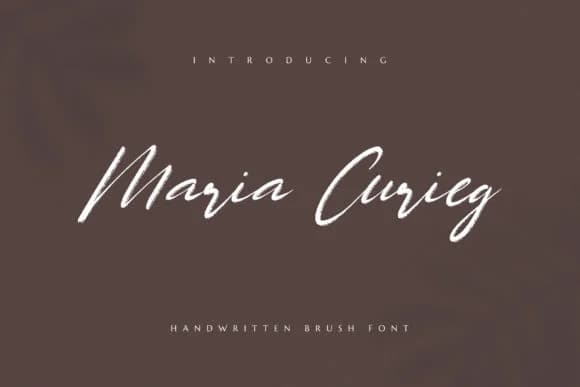
Maria Curieg Font by Productype is a natural handwritten brush script with effortless flow and organic curves that feel genuinely personal. The soft, relaxed letterforms work beautifully across social media graphics, wedding invitation suites, and boutique skincare packaging where authenticity matters most. What makes this font stand out is how the brush strokes retain real character without tipping into stiffness or overwrought flourishes. It's the kind of typeface that adds warmth to any design when you need something that feels hand-drawn rather than algorithmic.
You'll find genuine utility in craft label projects, greeting card layouts, and small business branding that calls for a personal voice. The handwritten quality moves quickly across different projects without demanding heavy customization or artistic tweaking, which translates to faster turnaround on client work. Where many script fonts feel either too formal or too whimsical, Maria Curieg sits comfortably in that middle ground that adapts across contexts and applications. The brush texture keeps things lively without overwhelming content, making it work just as well on mood boards as on finalized print work. The tactile, hand-lettered feel reads as more human than conventional typeface choices. Discover Maria Curieg on Creative Fabrica and watch how it transforms your next project.
Maria Curieg Font is a script font that shines as a display or heading face. Pair it with a clean sans-serif or serif font for body text β the contrast creates a clear hierarchy while the two styles stay balanced and easy to read.
Maria Curieg Font